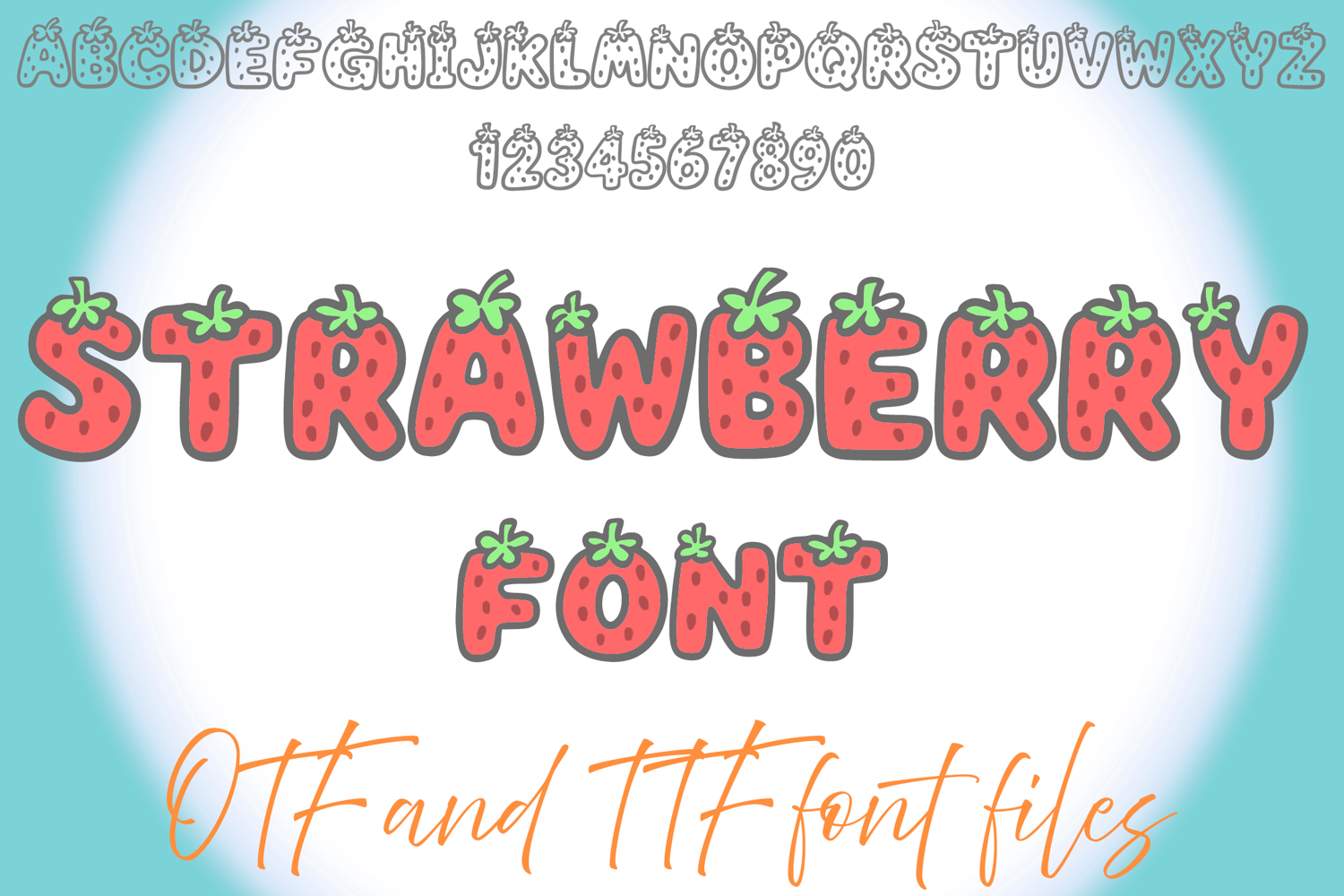
Strawberry Fruit Lettering ABC Text Font Typeface Berry OTF IllustrationÂ
A fun sticky font where you can create your own words and colour them to your vision!